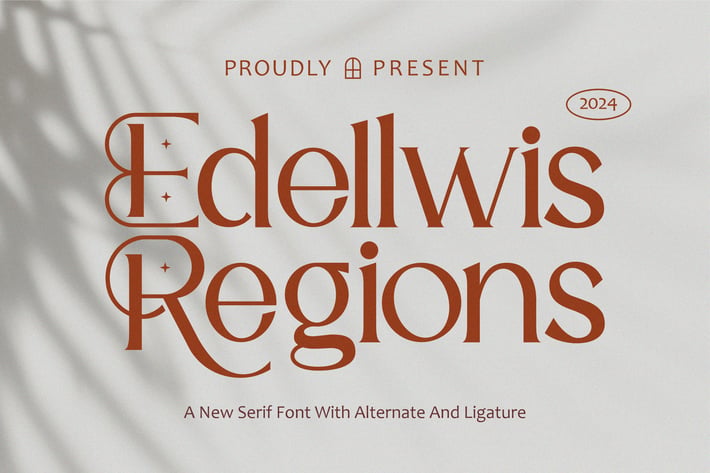
Edellwis Regions - Classy Serif Font
Edellwis Regions is a elegant and stylish font, best used as a display for headings, logos, branding, magazines, product packaging and invitations.